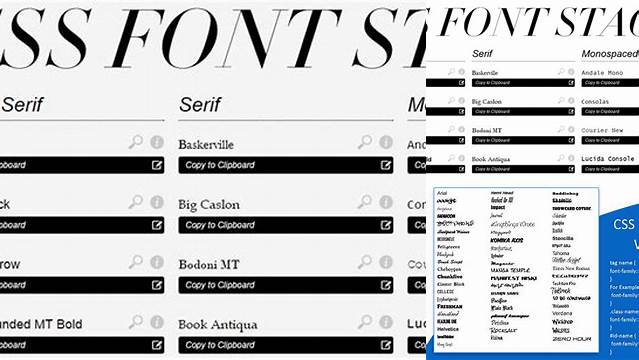
Top CSS Fonts: A Complete List For Web Design
Choosing the right fonts for your CSS can dramatically impact the look and feel of your website. A well-chosen font enhances readability, reinforces your brand identity, and creates a visually appealing experience for your users. In this article, we'll dive into a comprehensive list of CSS fonts, exploring various categories and providing tips on how to effectively use them in your web design projects.
1. Serif Fonts in CSS
Serif fonts are characterized by the small decorative strokes, known as serifs, at the end of each character. These fonts often convey a sense of tradition, authority, and elegance. When you're thinking about fonts for CSS lists, serif options can bring a touch of class to your bullet points and numbered lists. Let's explore some popular serif fonts you can use in your CSS:
Times New Roman
Times New Roman is a classic serif font that has been widely used in print and digital media. It's known for its readability and traditional appearance. Times New Roman can be a solid choice if you want a familiar and reliable font for your web content. However, be mindful that it can sometimes appear a bit dated, so use it strategically.
To implement Times New Roman in your CSS, you can use the following code:
Georgia
Georgia is another popular serif font that was designed specifically for screen readability. It has a taller x-height and wider characters compared to Times New Roman, making it easier to read on various devices. Georgia is a great option for body text and long-form content. When considering fonts for CSS lists, Georgia offers a sophisticated and readable option. This font maintains clarity even at smaller sizes.
To use Georgia in your CSS, you can include it in your font stack like this:
Garamond
Garamond is an elegant and classic serif font that exudes sophistication and style. It's often used in books and high-end publications. While it might not be the first choice for body text due to its delicate nature, Garamond can be used effectively for headings, titles, and other display purposes. If you aim to add a touch of elegance when using fonts for CSS lists, Garamond is a fantastic choice. Its refined serifs can elevate the aesthetic appeal of your lists.
Here's how you can add Garamond to your CSS:
2. Sans-Serif Fonts in CSS
Sans-serif fonts lack the decorative strokes found in serif fonts. They typically have a cleaner, more modern appearance. These fonts are often preferred for web design due to their readability on screens. When you're choosing fonts for CSS lists, sans-serif options can provide a contemporary and minimalist touch. Let's explore some popular sans-serif fonts for your CSS:
Arial
Arial is a widely used sans-serif font known for its clean and straightforward design. It's a safe and reliable choice for body text and general content. Arial is highly legible and works well across various browsers and devices. While it might not be the most exciting font, its ubiquity and readability make it a practical option. Thinking about fonts for CSS lists? Arial ensures your lists are easy to read and understand.
To implement Arial in your CSS, you can use the following code:
Helvetica
Helvetica is a classic sans-serif font that is renowned for its simplicity and neutrality. It's often used in corporate branding and design. Helvetica is highly versatile and works well in a variety of contexts. While some designers find it overused, its clean lines and excellent readability make it a solid choice for web design. Considering fonts for CSS lists, Helvetica provides a clean and modern look.
To use Helvetica in your CSS, you can include it in your font stack like this:
Open Sans
Open Sans is a popular sans-serif font that was designed with readability in mind. It has a neutral yet friendly appearance, making it suitable for a wide range of applications. Open Sans is a great choice for body text, headings, and UI elements. If you're looking at fonts for CSS lists, Open Sans is an excellent option. Its clear and open structure enhances readability, making your lists user-friendly.
Here's how you can add Open Sans to your CSS:
3. Monospace Fonts in CSS
Monospace fonts have characters that each occupy the same amount of horizontal space. These fonts are often used for code snippets and technical documentation. They can also be used to create a retro or typewriter-like effect. When you're selecting fonts for CSS lists, monospace options can add a unique touch, especially when presenting code examples within your lists.
Best Practices for Font Testing
Test fonts on different devices and browsers. Check for readability and legibility. Ensure that the font complements the overall design.
By carefully considering these factors and exploring the various font options available, you can create a visually appealing and user-friendly website that effectively communicates your message through carefully chosen fonts for CSS lists and overall typography.